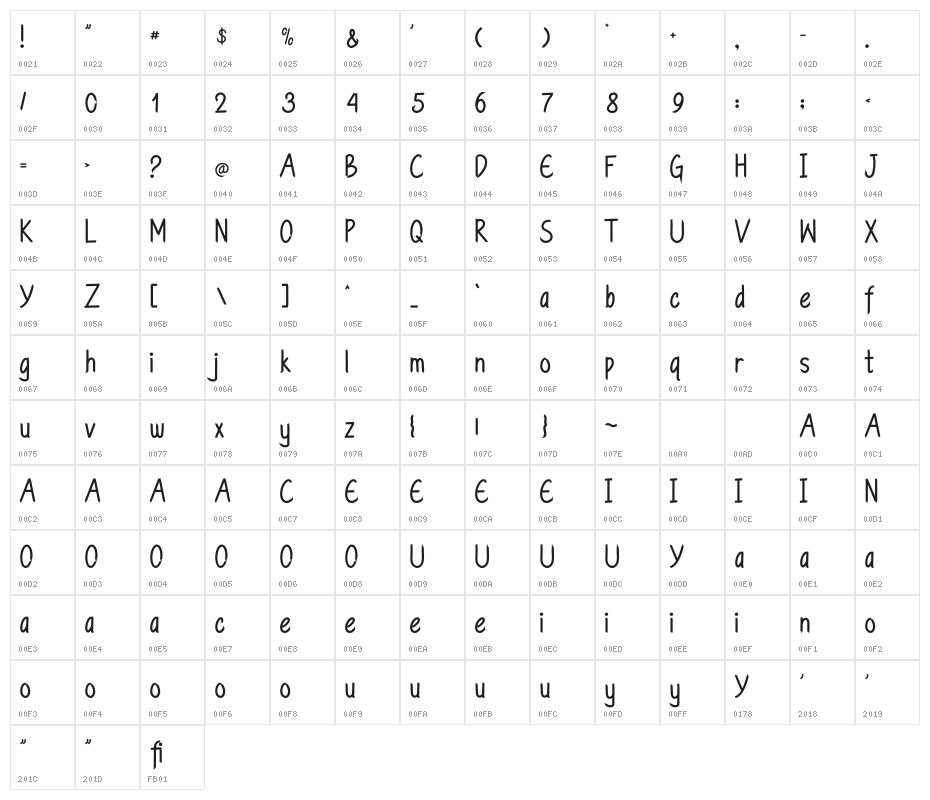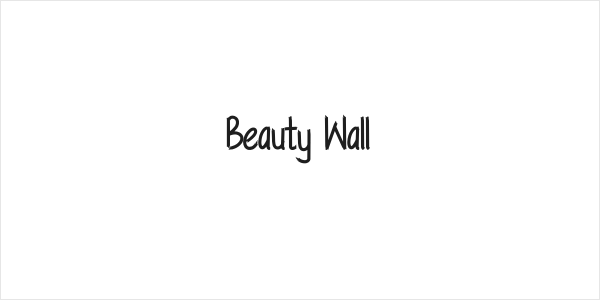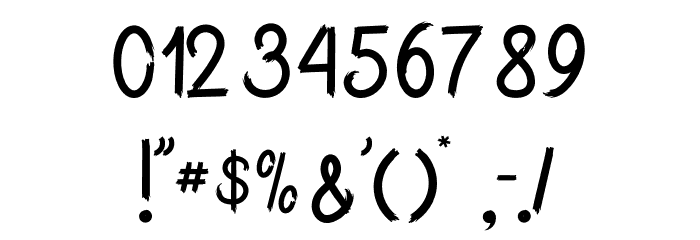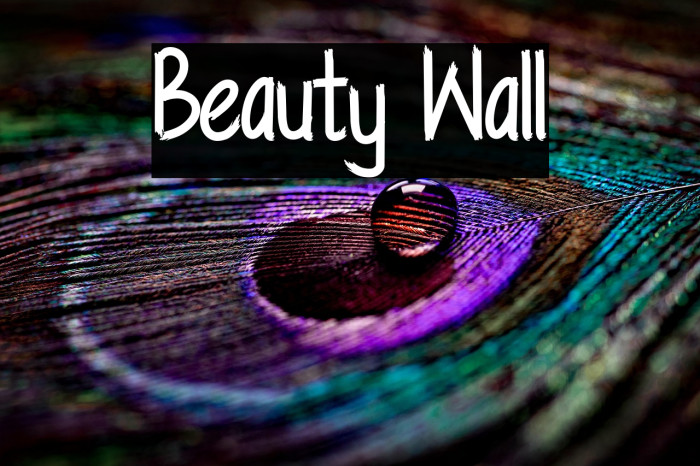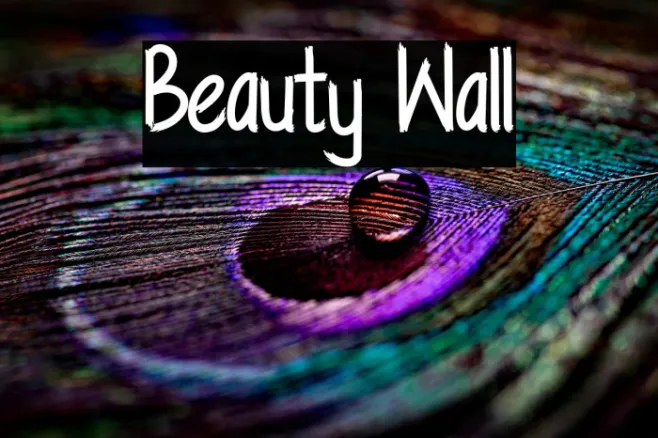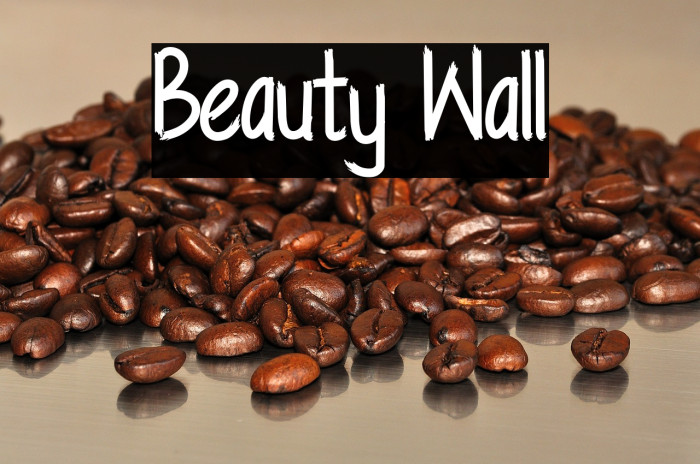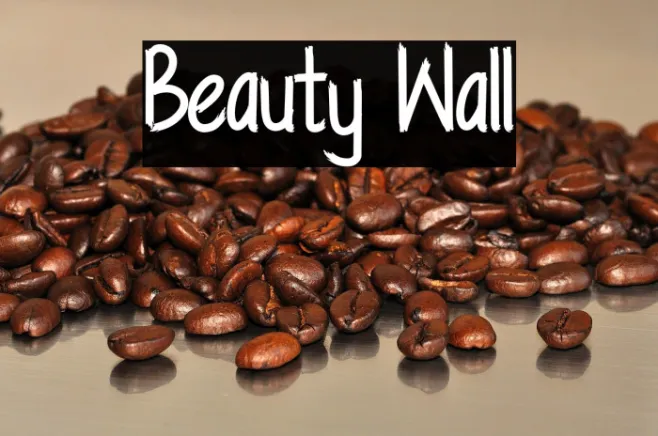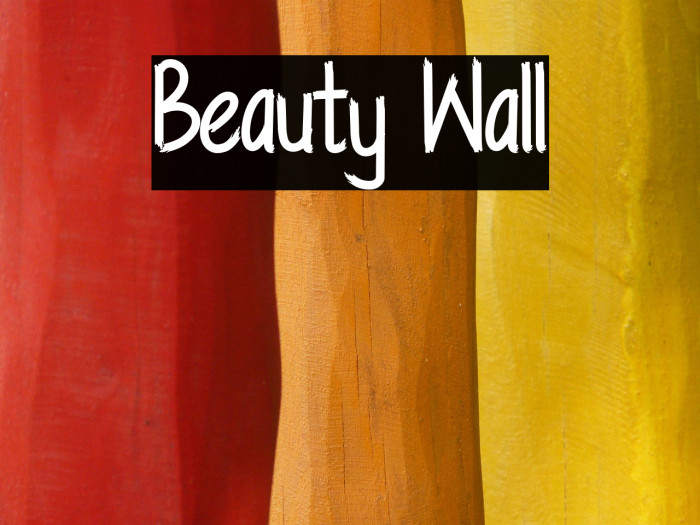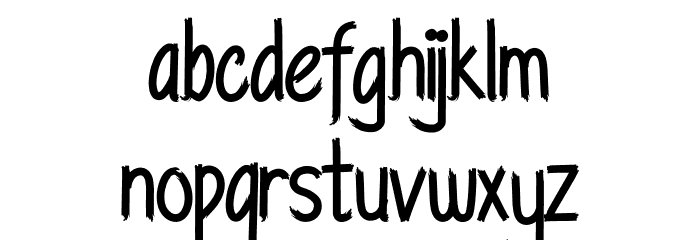
Beauty Wall Font
Beauty Wall Description
This font features a playful and artistic style, characterized by its hand-drawn appearance and uneven strokes. The letters have a casual, informal feel, with slightly exaggerated curves and varying line thicknesses that add a sense of movement and energy. The uppercase and lowercase letters maintain a consistent style, while the numerals and special characters complement the overall design. This font is well-suited for creative projects that require a touch of whimsy and personality.
| Proposed Projects | Ideal for greeting cards, children's books, playful branding, and artistic posters. |